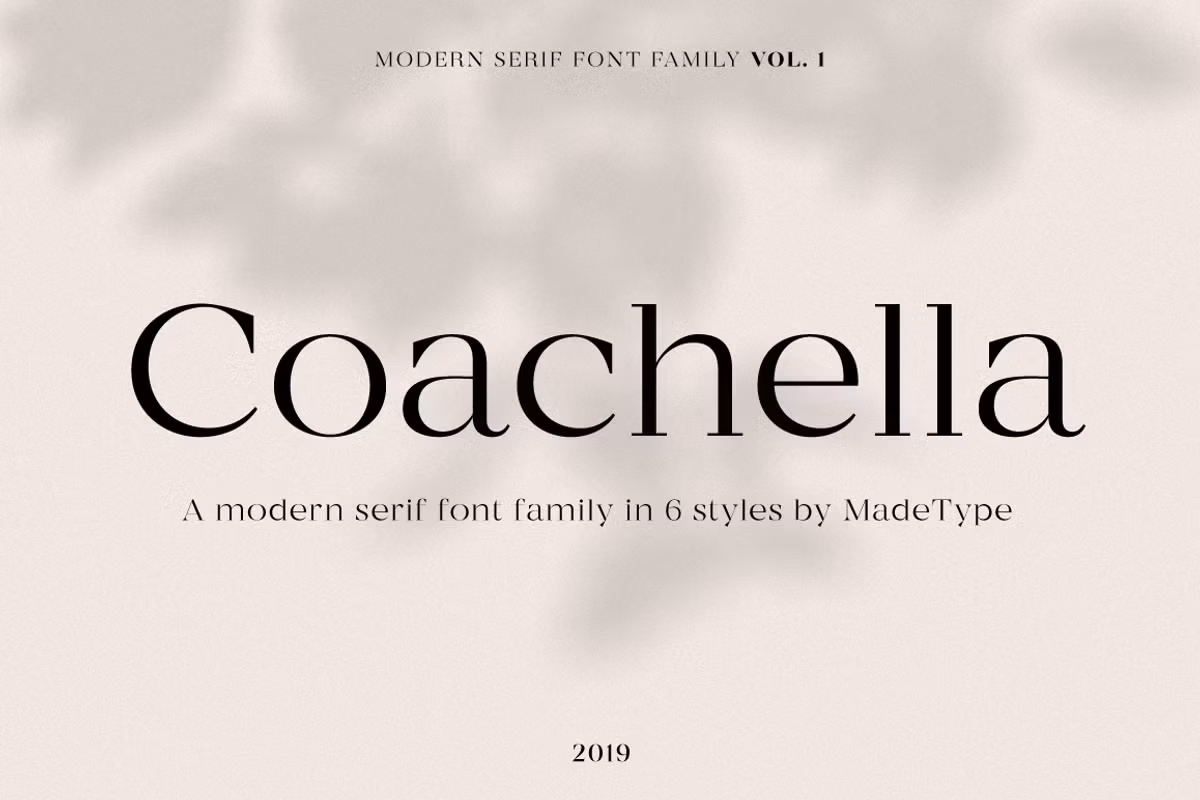
MADE Coachella Free Download
MADE Coachella Font Free Download is a chic and stylish serif typeface inspired by fashion editorials and modern elegance. Please note: you must purchase this font for commercial use, but you can test it through a free download. With high contrast strokes, graceful curves, and a refined presence, MADE Coachella is perfect for luxury branding, magazine headlines, beauty packaging, and upscale social media content.
This font captures the essence of sophistication and trend-forward design—ideal for creatives who want their typography to feel both bold and refined. Whether you're designing a sleek logo or an editorial layout, MADE Coachella Font Free Download adds a fashionable edge to your work. Fully compatible with Adobe Illustrator, Photoshop, Canva, and more, it integrates seamlessly into any design workflow. Download it today for personal use and let your creativity shine with the elegant confidence of MADE Coachella.